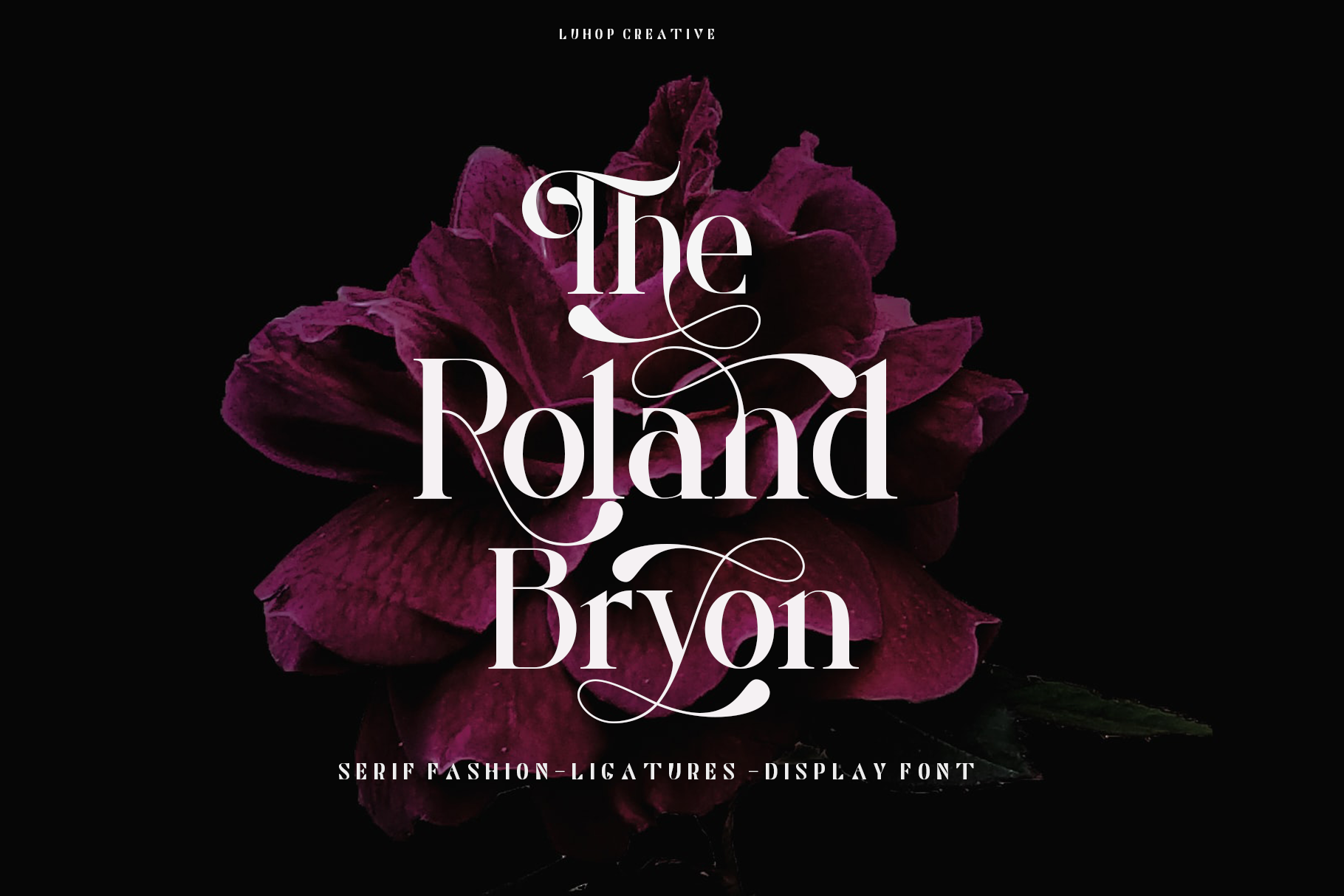
Roland Bryon
Roland Bryon is a serif font family published by Luhop Creative.
Roland Bryon Display Ligature Fashion Serif There’s beauty in the plain version Roland Bryon, even without all the extras, for a clean and elegant minimal serif. Any version Roland Bryon brings a touch of luxury and bespoke custom typography to modern logos, websites, social media quotes, wedding branding, and more.
Roland Bryon Features
• Full Set of standard alphabet and punctuation
• Serif Ligatures
• alternates
• Multilingual Characters